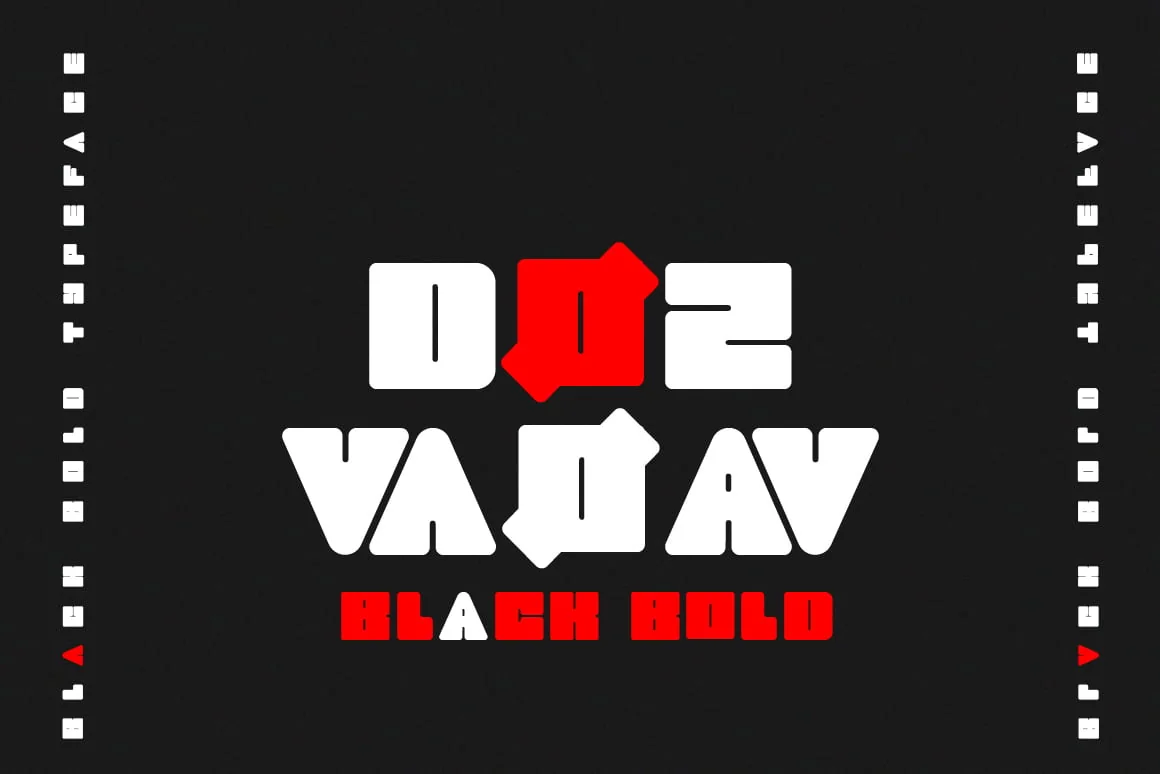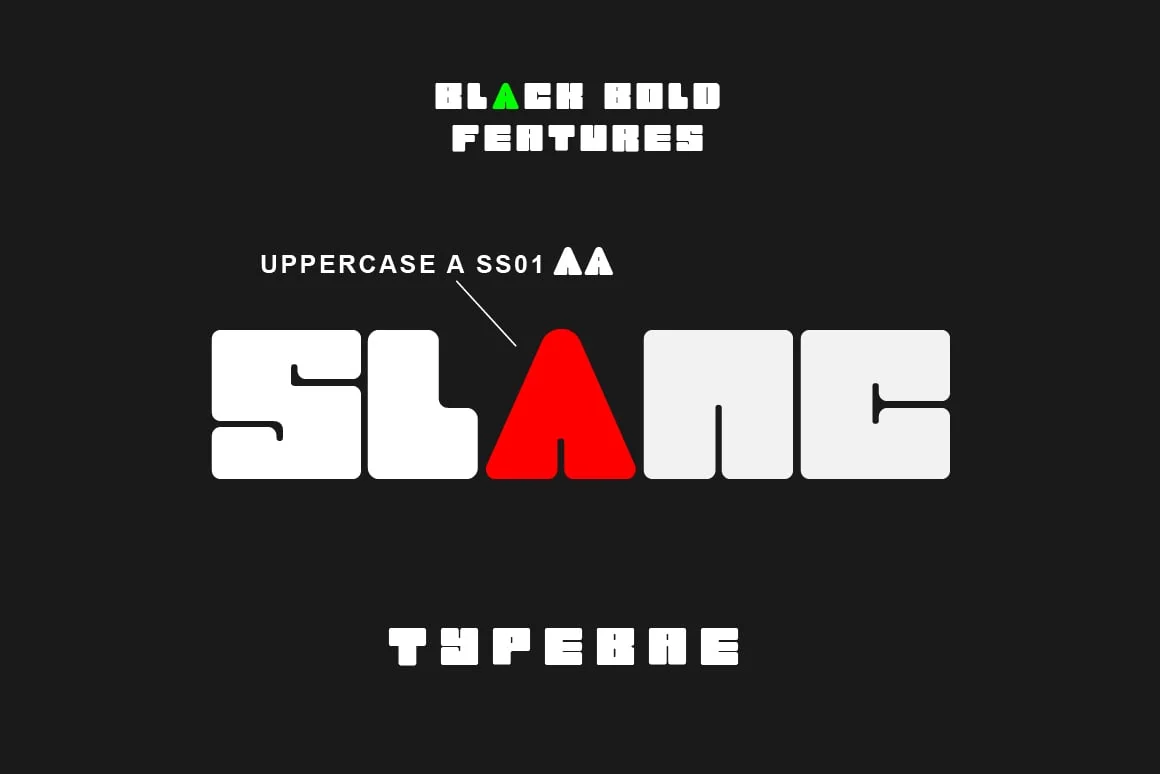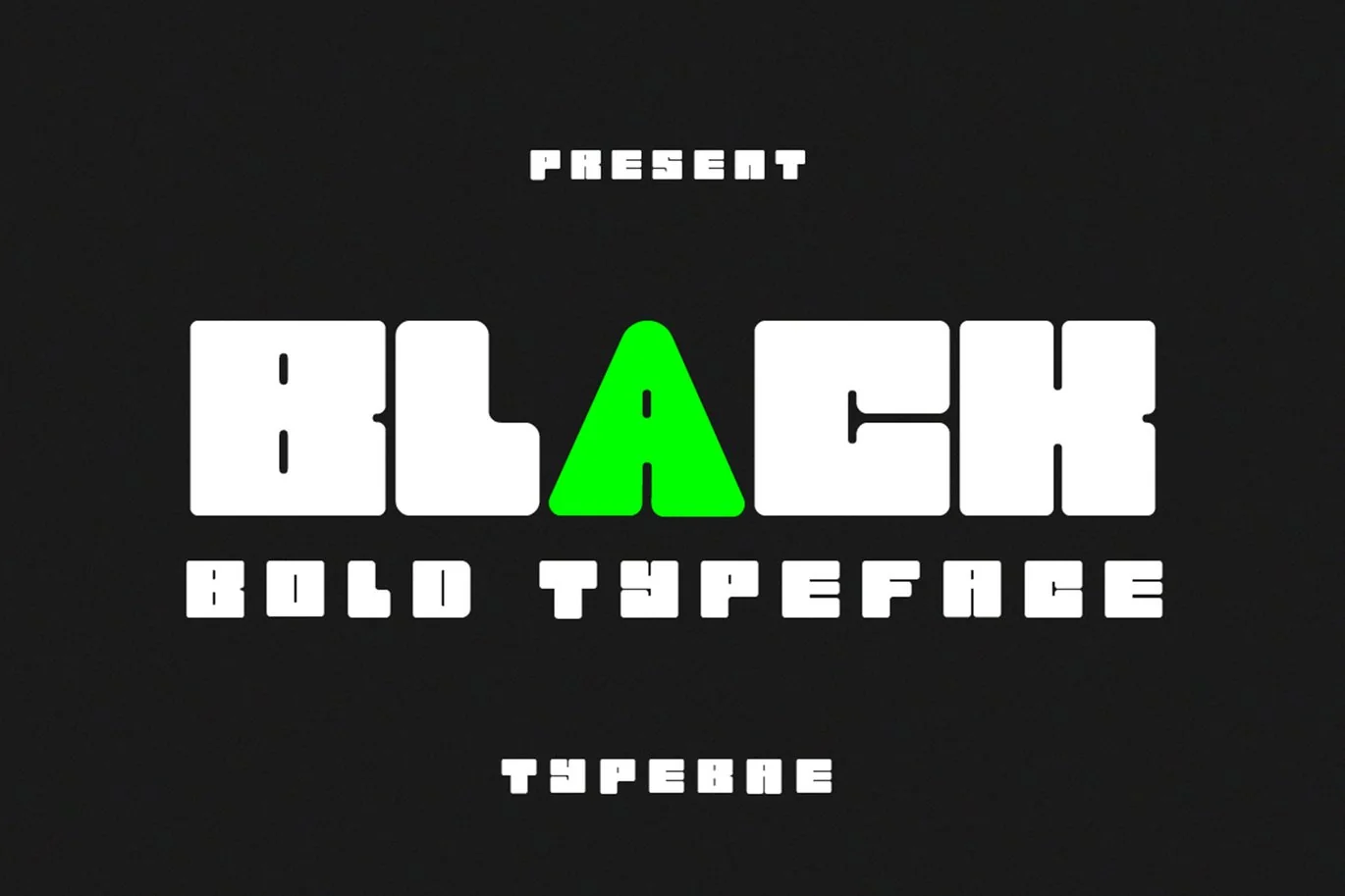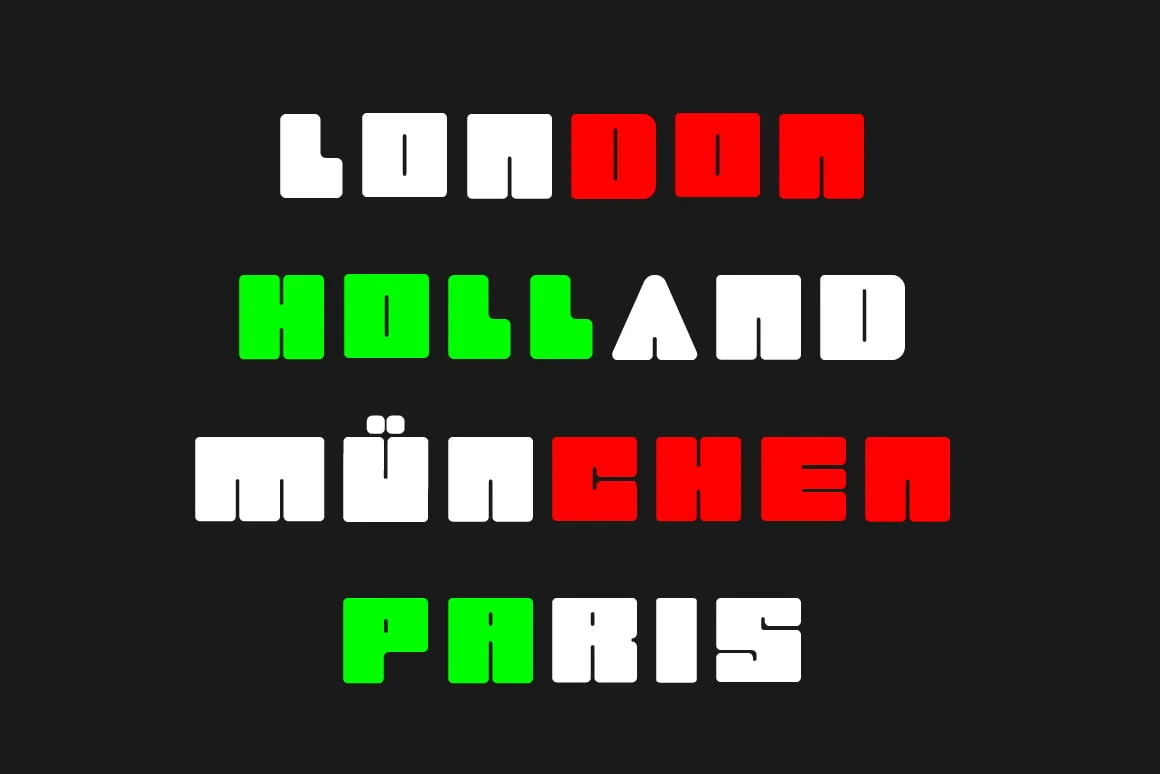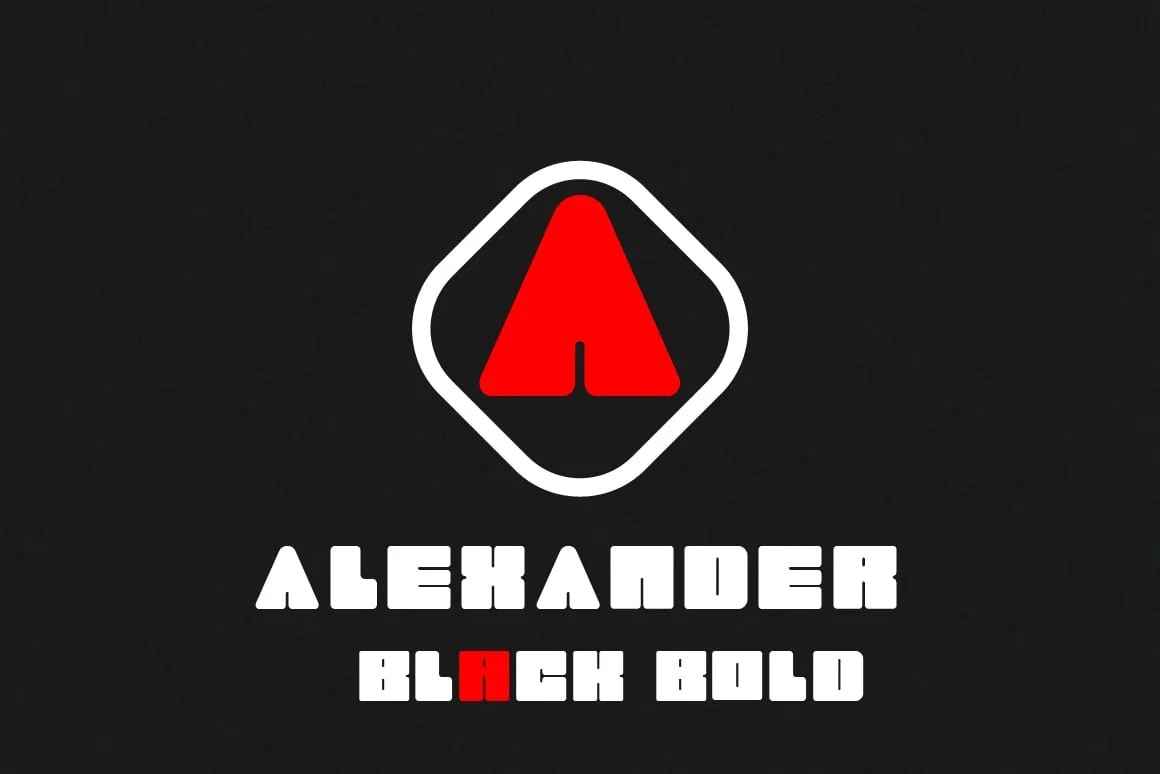
Black Bold Display Font
Black Bold is a cool, bold and incredibly unique display font. It can be used for various purposes such as logos, headings, letterhead, signage, labels, news, posters, badges and so much more.
*Uppercase, Lowercase, Numerals & Punctuations
*Alternate
*Multilingual support